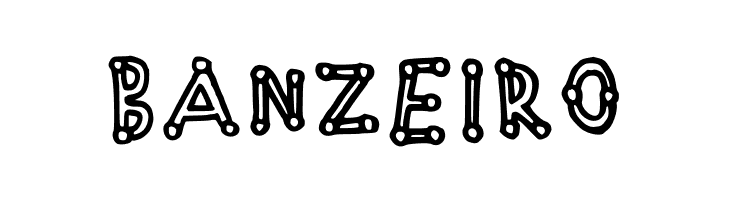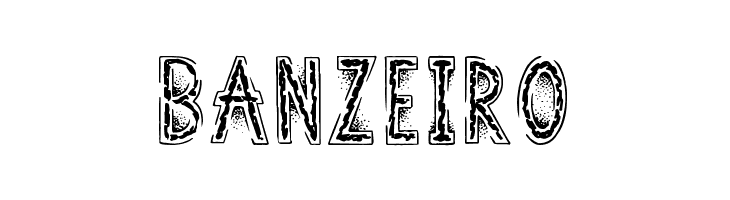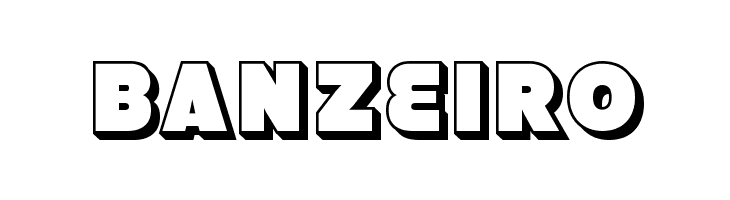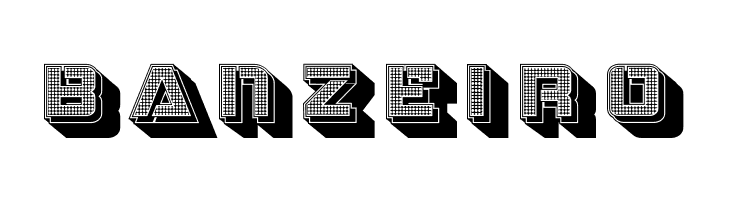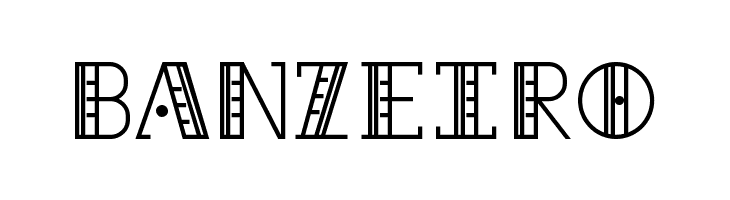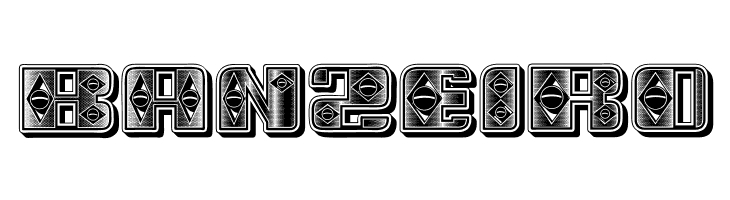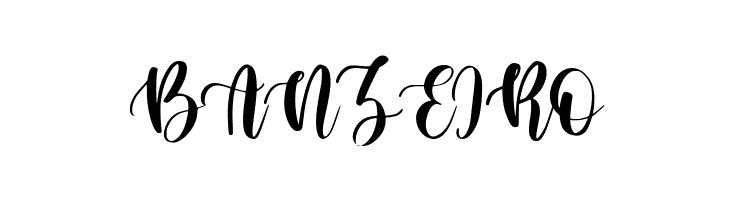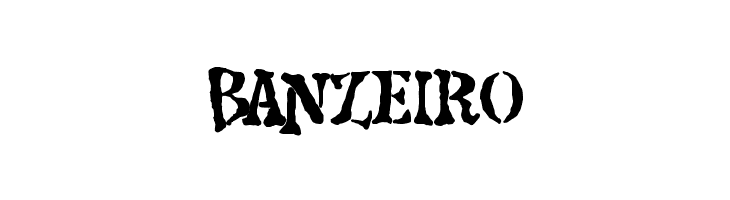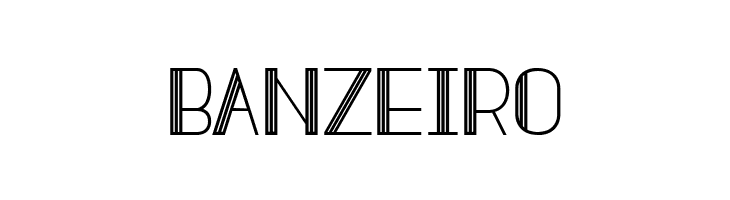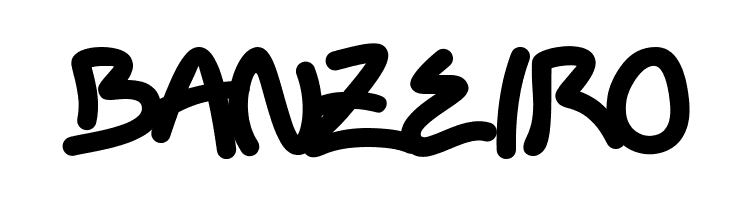
A playful, hand-drawn font resembling sticky notes with a casual and whimsical style.
A bold, italicized font with a dynamic lightning bolt motif.
A bold, mechanical-themed font with a playful, industrial design.
A playful, stitched decorative font with bold, rounded characters.
Intricate, stitched pattern with a geometric, fabric-like design.
A playful, handwritten font with rounded strokes and consistent height.
A bold, italicized font with a racing theme and dynamic shadow effect.
A playful, textured font with bold, rounded characters and a stone-like appearance.
A decorative font with intricate floral and vine motifs, reminiscent of ancient stone carvings.
A bold, textured font with a rugged, stone-like appearance.
A playful, stone-textured decorative font with bold, uppercase characters.
A textured, stone-like serif font with a rugged, carved appearance.
An elegant script font with fluid, cursive strokes and graceful curves.
A bold, flowing script font with elegant, decorative flourishes.
A bold, decorative serif font with floral embellishments.
A bold, geometric font with clean lines and a modern aesthetic.
A versatile font combining decorative and minimalist styles in uppercase letters.
A modern, handwritten script font with elegant and flowing characters.
A bold, distressed font with a rugged, grunge-like appearance.
A playful, straw-inspired decorative font with a hand-drawn look.
Playful, bold, hand-drawn font.
A bold, decorative font with a playful, textured design.
A bold, graffiti-inspired font with a three-dimensional, street art style.
A gritty, urban font with a distressed, graffiti-inspired style.
A rugged, distressed font with a bold, urban aesthetic.
A bold, graffiti-inspired font with a dynamic, hand-drawn style.
A bold, graffiti-inspired font with dynamic strokes and high contrast.
A bold, decorative font with intricate geometric patterns and a street art style.
A modern, geometric font with abstract and artistic elements.
A playful, hand-drawn font with elongated, irregular letterforms and a whimsical style.